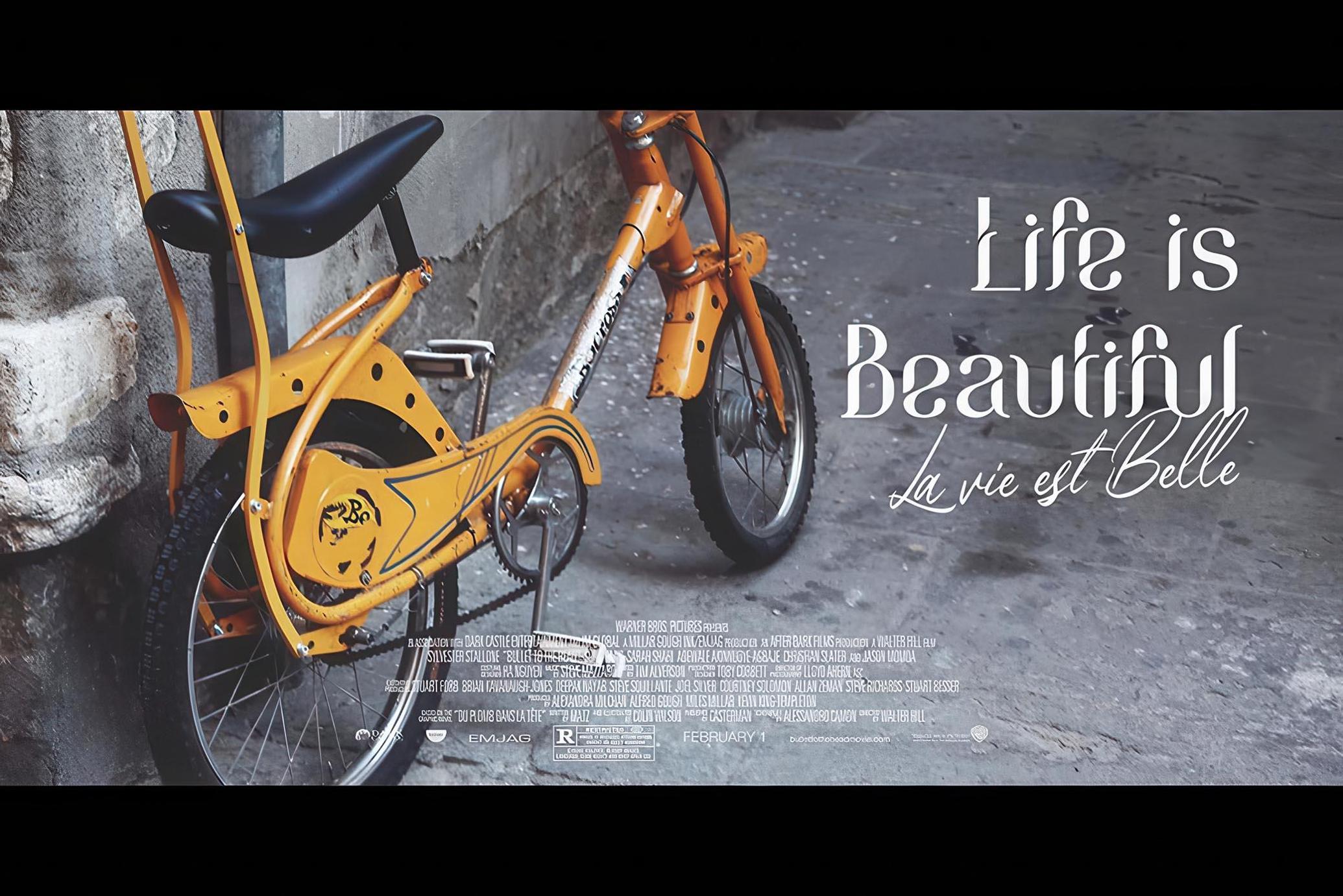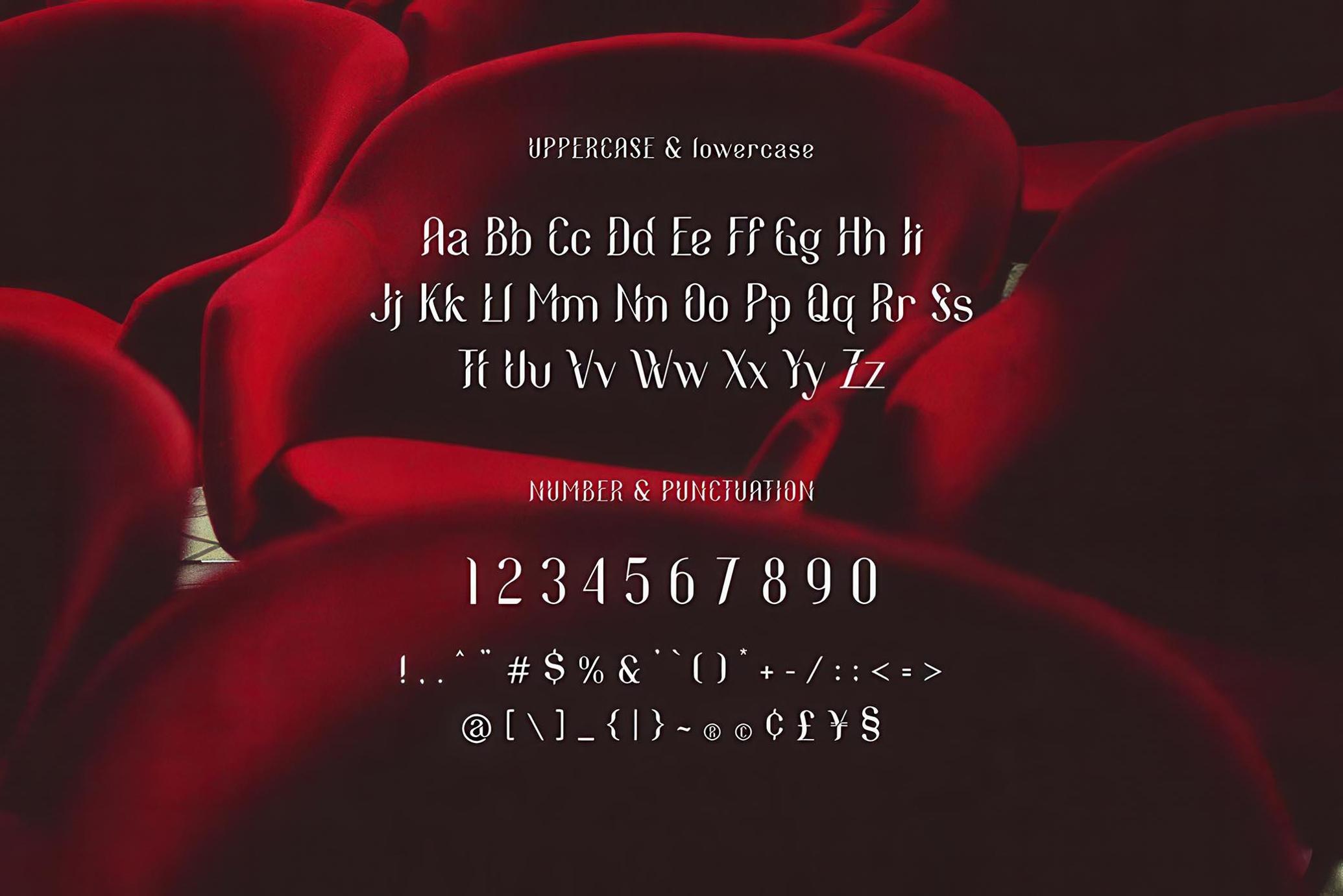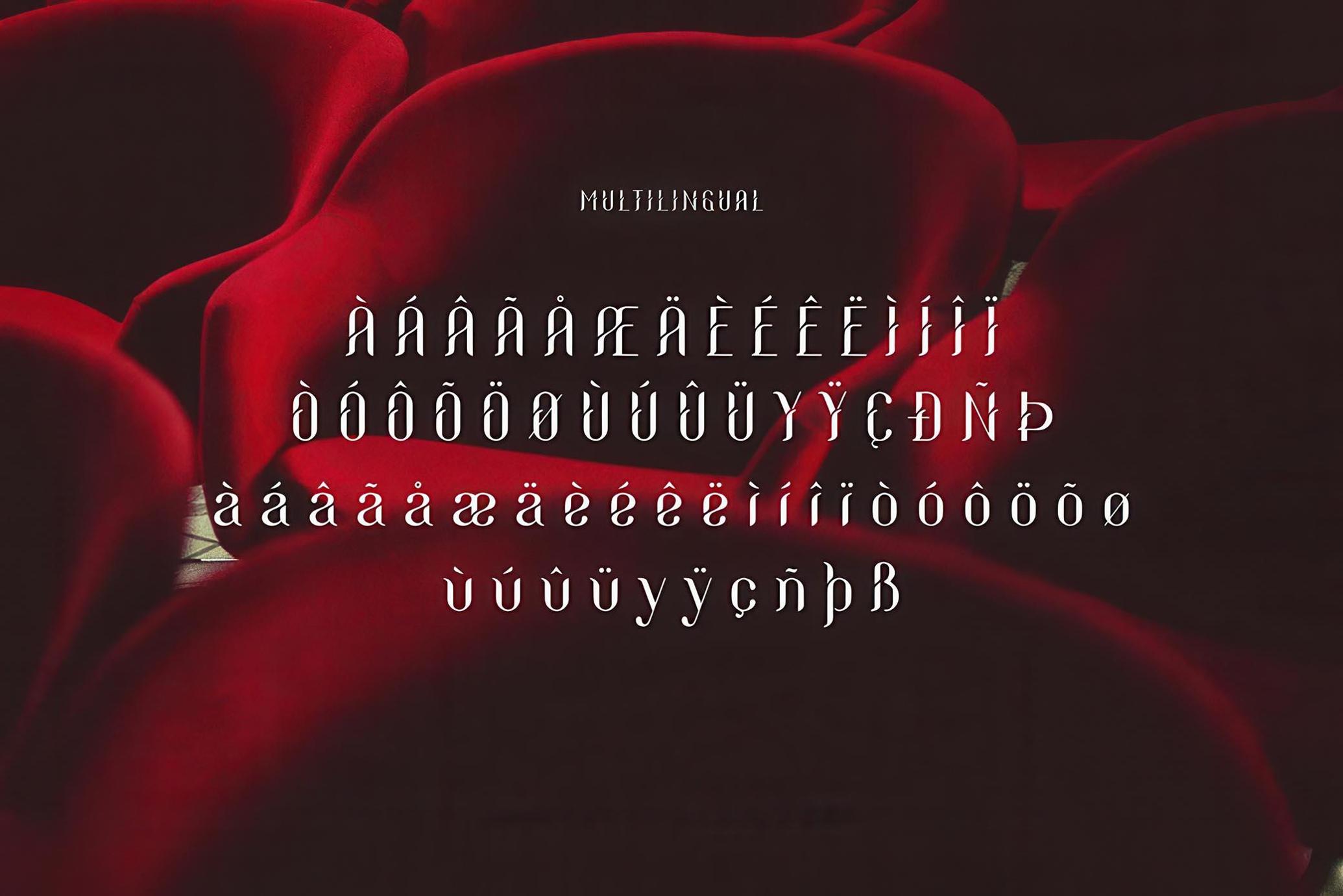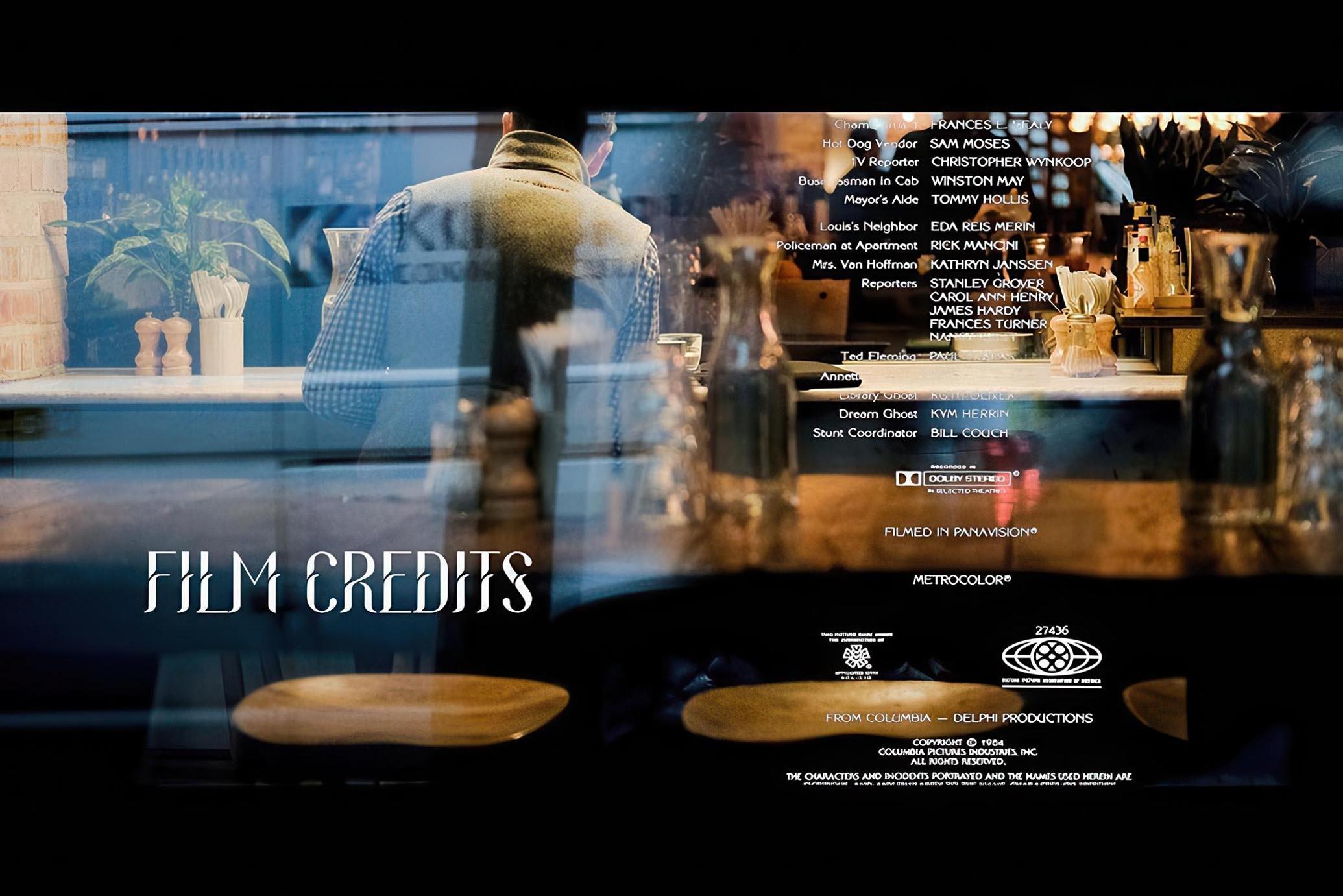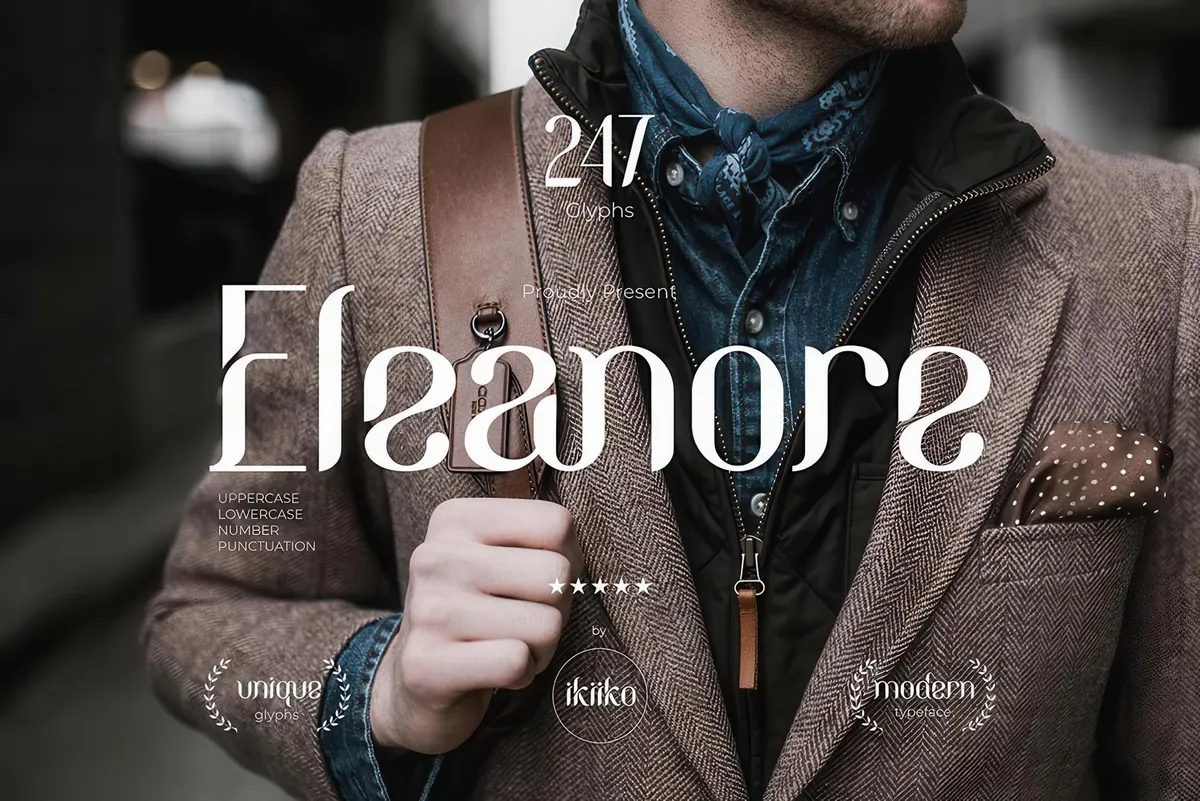
Eleanore - Decorative Serif
Eleanore
Eleanore is a decorative typeface that has own unique style & modern look. This typeface is perfect for an elegant & luxury logo, book or movie title design, fashion brand, magazine, clothes, lettering, quotes, and so much more.